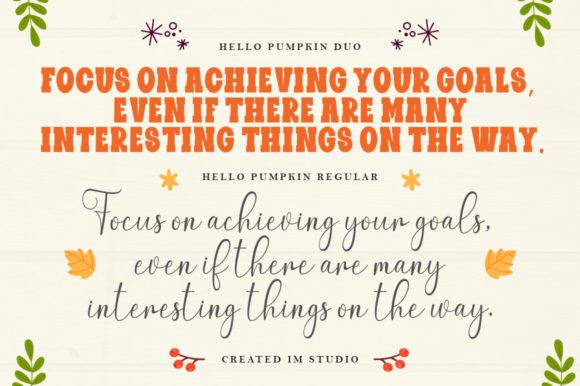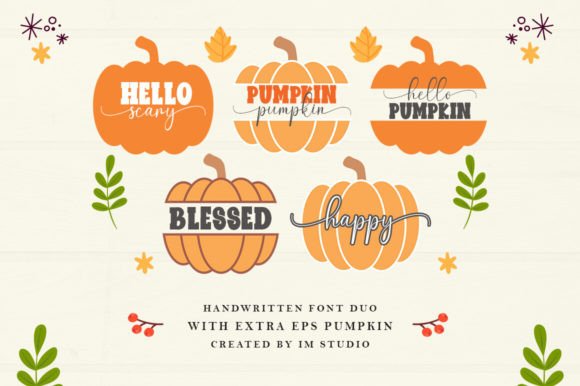
Introduction to Hello Pumpkin Duo Font Font
Fonts play a crucial role in design, and the Hello Pumpkin Duo Font font is a typeface that brings both character and versatility to any project. Whether you’re working on a branding project, a website, or a print design, the Hello Pumpkin Duo Font font offers a unique style that can elevate your work.
Experience the enchanting allure of Hello Pumpkin Duo, a unique marriage of sans serif and script.
This multifaceted font duo caters to a wide range of applications, adding a dash of romance from anything including sentimental greeting cards to eye-catching titles Imbued with PUA encoding, Hello Pumpkin Duo avails an array of glyphs and ligatures, guaranteeing an effortless blend with any design landscape.
Key Features of Hello Pumpkin Duo Font Font
Why Choose Hello Pumpkin Duo Font Font?
The Hello Pumpkin Duo Font font is more than just a typeface – it’s a design tool that helps you communicate your message with style and clarity. Its unique character set and versatile design make it suitable for a wide range of applications, from elegant invitations to bold headlines.
With its carefully crafted letterforms and balanced proportions, the Hello Pumpkin Duo Font font ensures readability and visual appeal across all mediums.
What makes Hello Pumpkin Duo Font font special?
The Hello Pumpkin Duo Font font stands out with its unique design, exceptional readability, and versatility across various design applications.